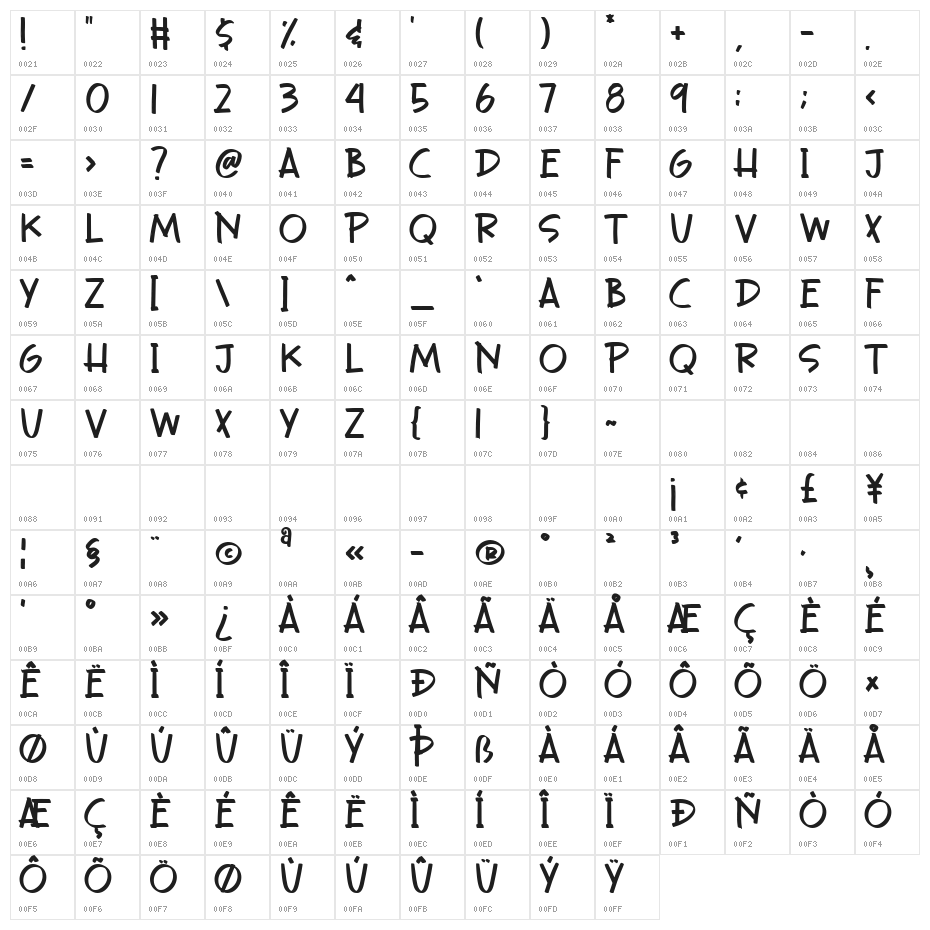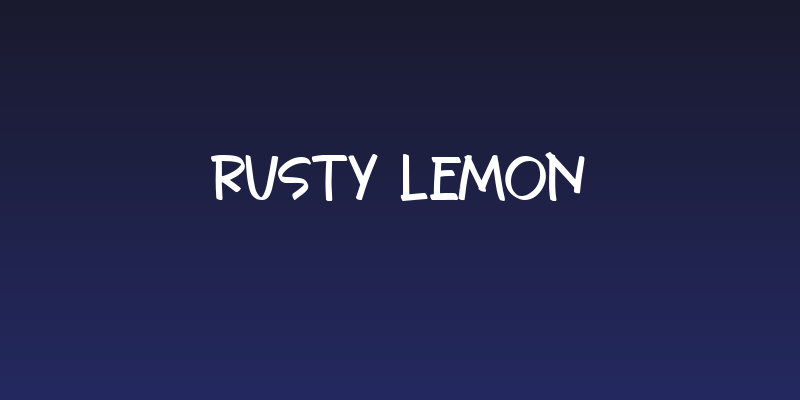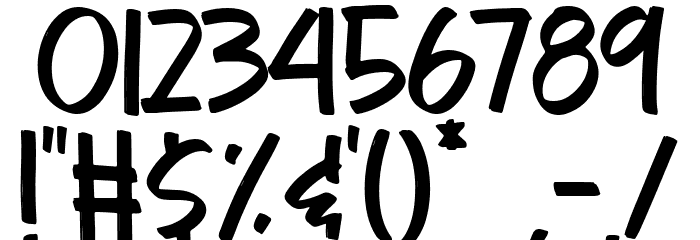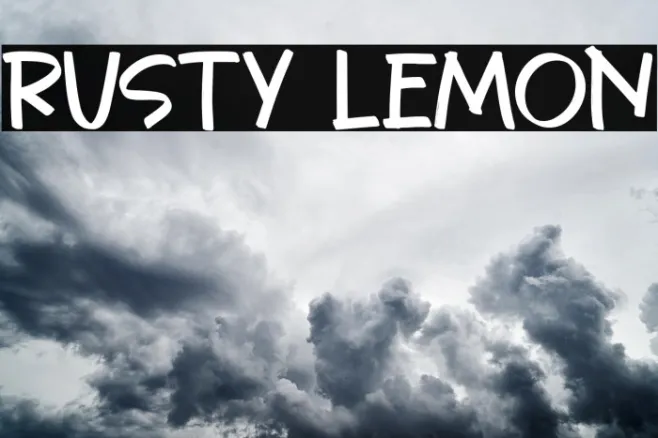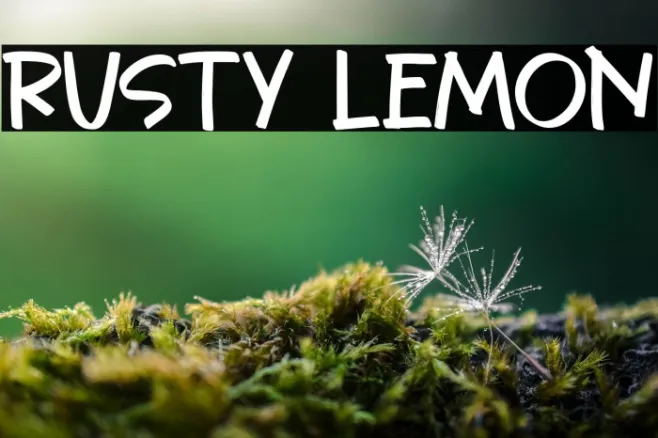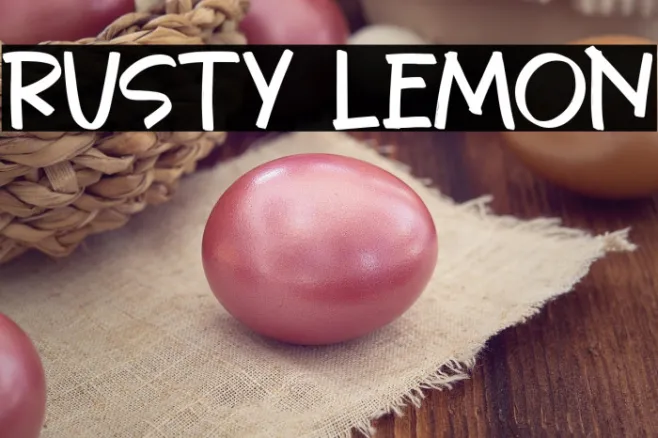
Rusty Lemon Font
Rusty Lemon Description
This font exhibits a playful and energetic handwritten style, characterized by its bold and slightly irregular strokes. The letters have a casual, informal appearance, with a slight slant that adds to their dynamic feel. The uppercase and lowercase letters maintain a consistent style, with rounded edges and a slightly uneven baseline, giving the text a lively and approachable look. The numerals and special characters follow the same design principles, ensuring a cohesive appearance across all elements. This font is well-suited for projects that require a personal touch or a sense of fun and creativity.
| Proposed Projects | Ideal for greeting cards, children's books, playful branding, and casual invitations. |